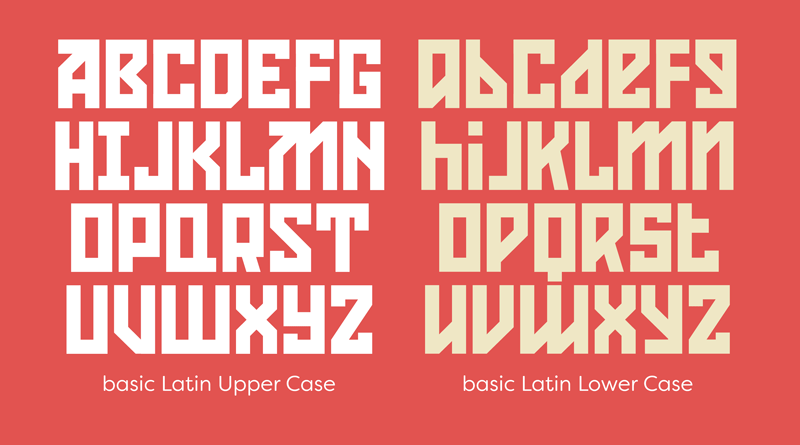
Font name: | Konstruktor |
Categories | Foreign look, Russian |
Author: | Neogrey Creative |
Note by Neogrey Creative | |
Konstruktor has been developed to be a narrow cousin of my other contructivist typeface of mine, Red October. It annoyed me to see people squishing Red October horizontally in order to achieve narrower look - that's why I created a complementing condensed typeface. I've added a number of alternates for some of the glyphs. |